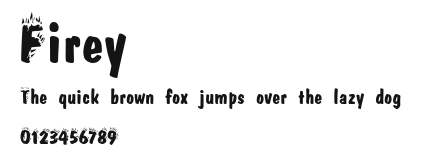
• Font Name: Firey
• Font ID: FontMonger:Firey Normal
• Full Font Name: Firey Normal
• PostScript Name: Firey
• Character Count: 135
About Firey.ttf
Firey.ttf is a modern, elegant sans-serif font designed for ultimate readability and visual harmony. Perfect for branding, headlines, web design, and print materials.